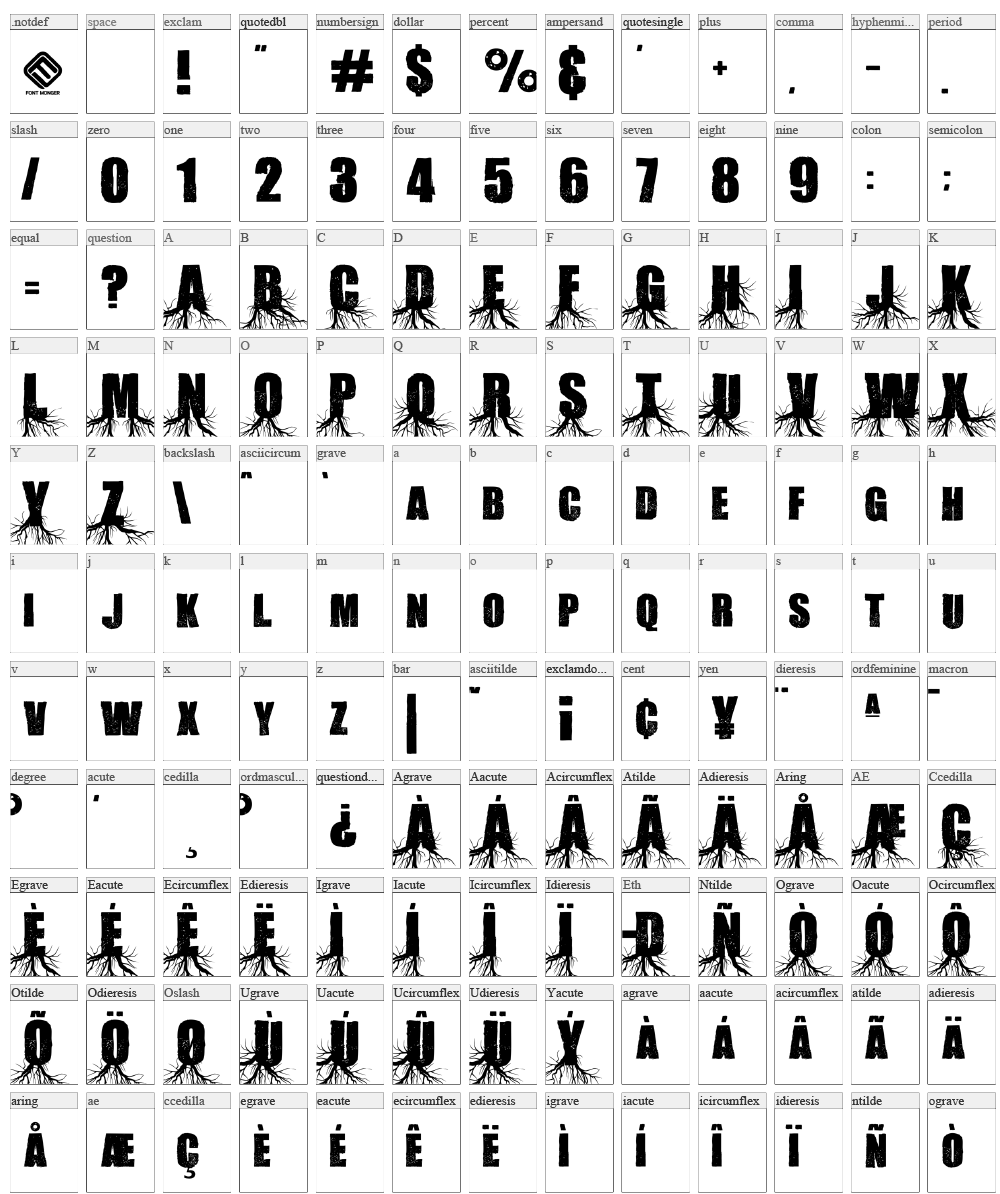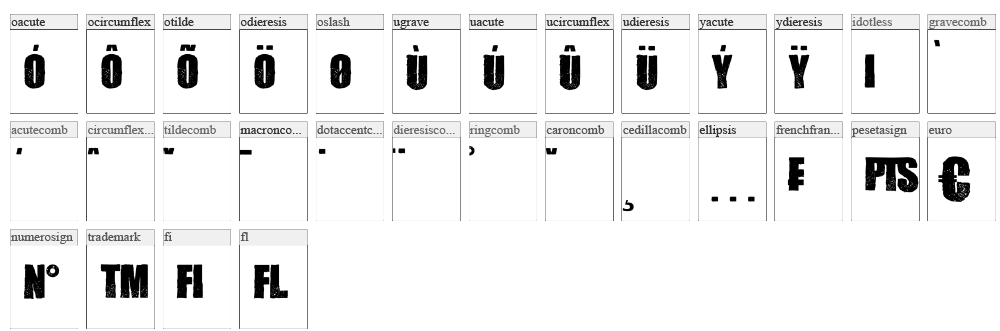
Aokigahara: A font inspired by the eerie and mysterious atmosphere of the Aokigahara forest in Japan. Its tangled vines and twisted branches evoke the dense foliage of the forest, while its desolate, haunting curves hint at the dark reputation of the forest as a place of despair and suicide. Ideal for projects exploring themes of isolation, loss, and melancholy, Aokigahara font will bring a sense of foreboding to any project.
Uppercase: Yes, contains descenders
Lowercase: Same as uppercase but without descenders
Numbers: Yes
Symbols: Yes
Accents: Yes
Theme: Eroded, horror